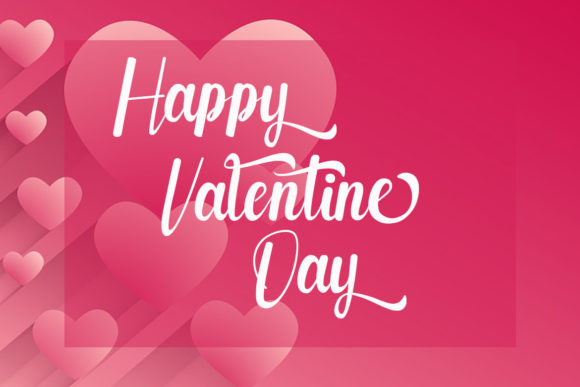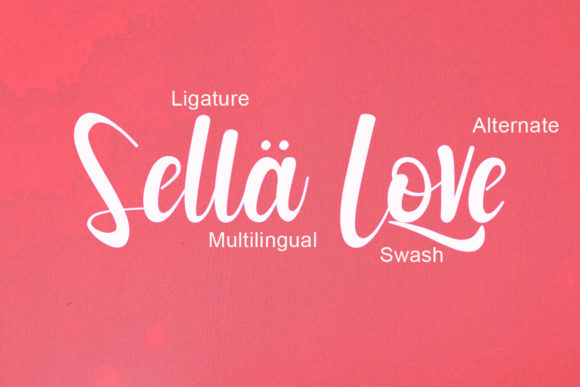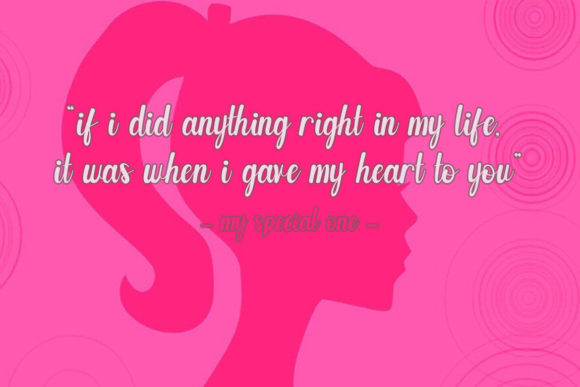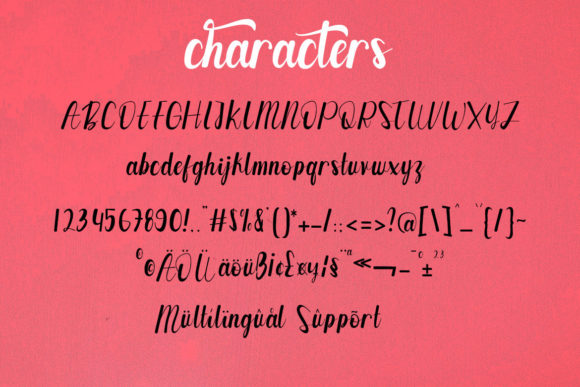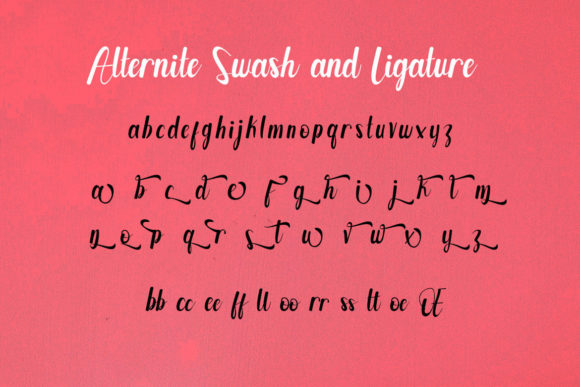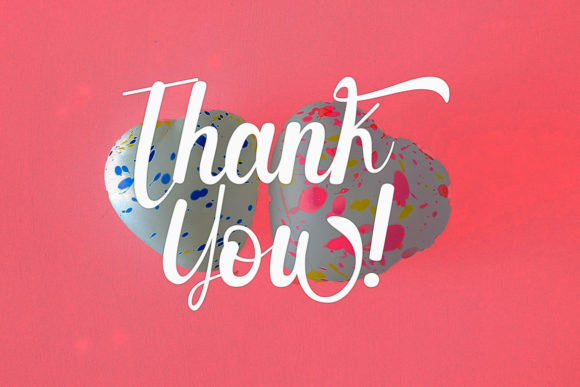
Introduction to Sillavote Font
Sillavote is a lovely script font featuring charming, playful characters that seem to dance along the baseline.
Add this font to your most creative ideas, and notice how it makes them stand out .
Key Features of Sillavote Font
Why Choose Sillavote Font?